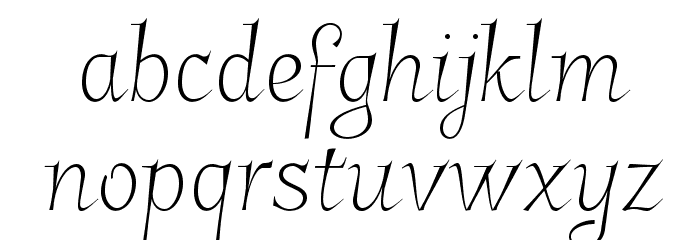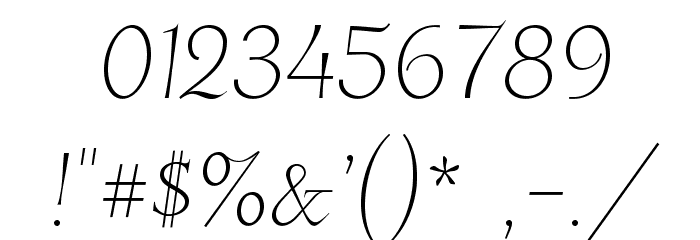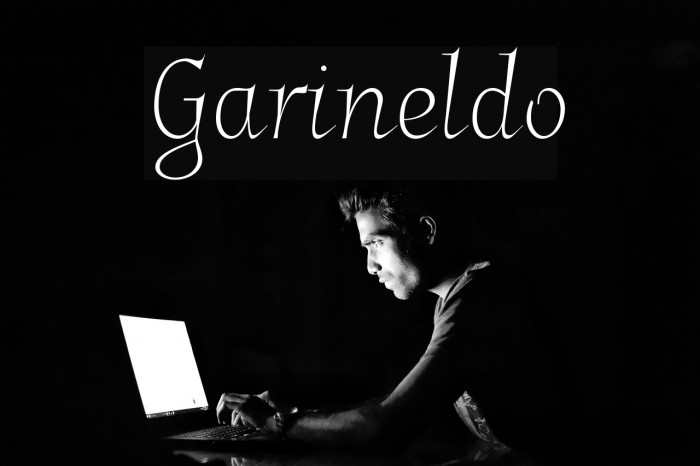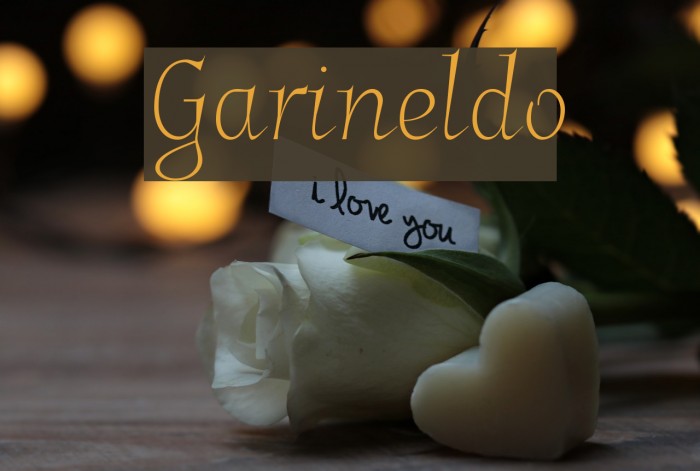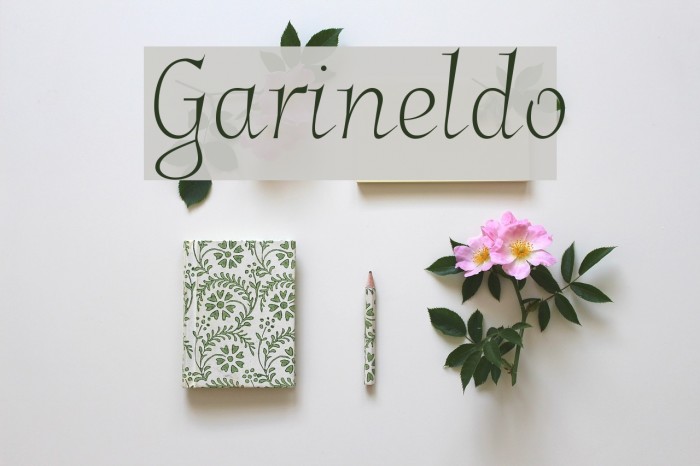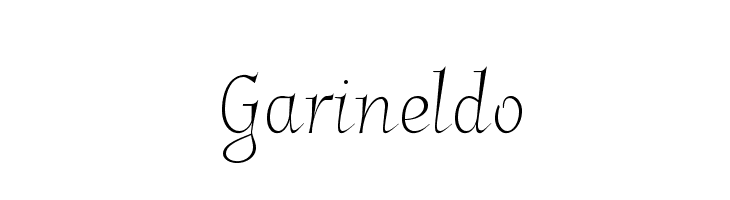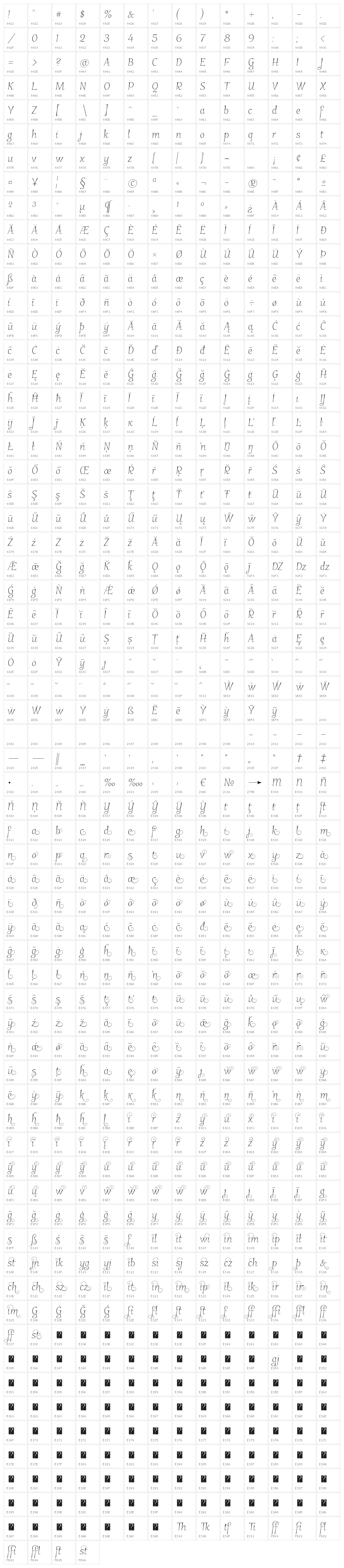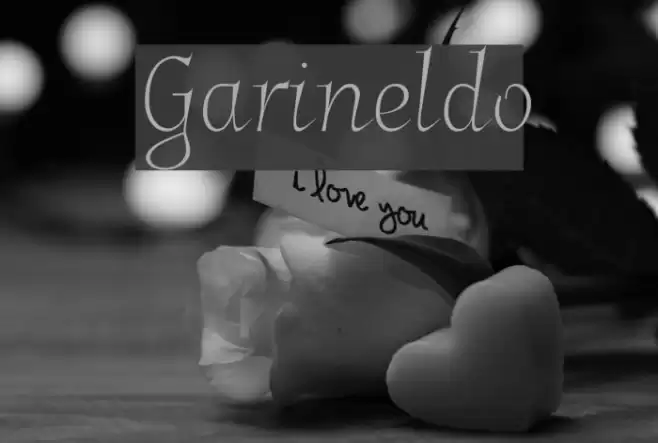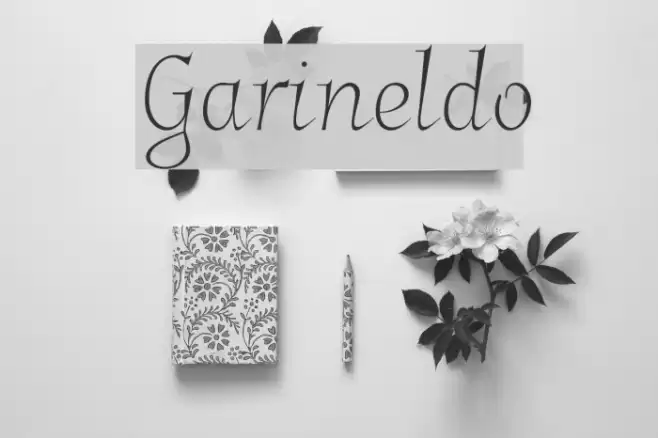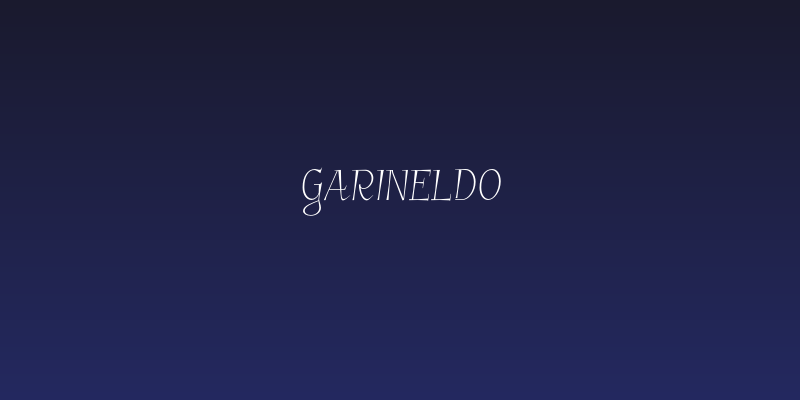
Garineldo Font
This elegant font features a classic serif style with a slight italic slant, giving it a sophisticated and timeless appearance. The characters are well-defined with thin, graceful strokes that convey a sense of refinement and elegance. The uppercase letters are tall and stately, while the lowercase letters maintain a consistent flow with subtle curves. The numerals are proportionate and blend seamlessly with the overall design. Special characters are crafted with the same attention to detail, ensuring a cohesive look across all elements.
A classic serif font with elegant, italicized strokes and refined details.
- Proposed Projects: Ideal for wedding invitations, formal event programs, luxury brand logos, and editorial design.
- Overall Style: Classic
- Use Case: Headlines, Logos, Invitations